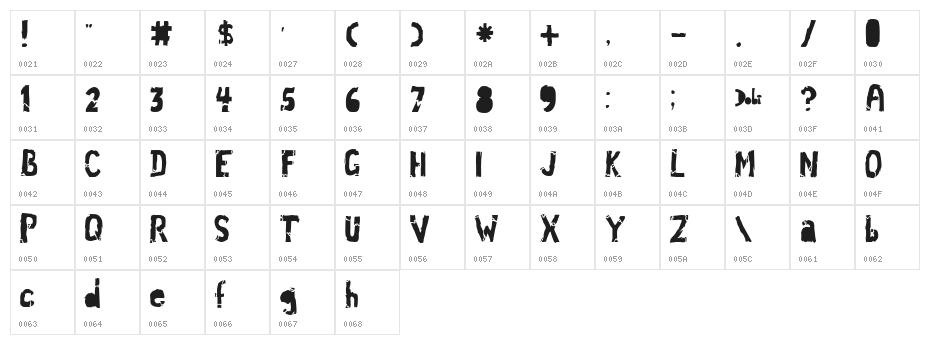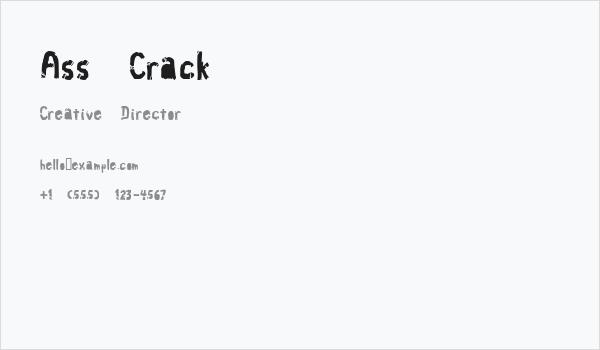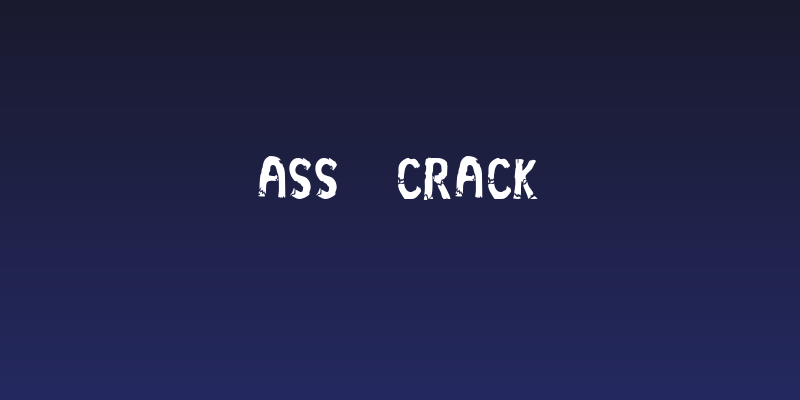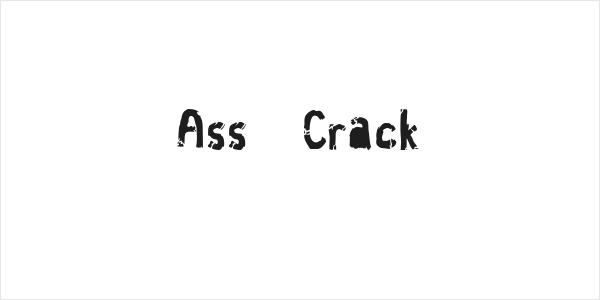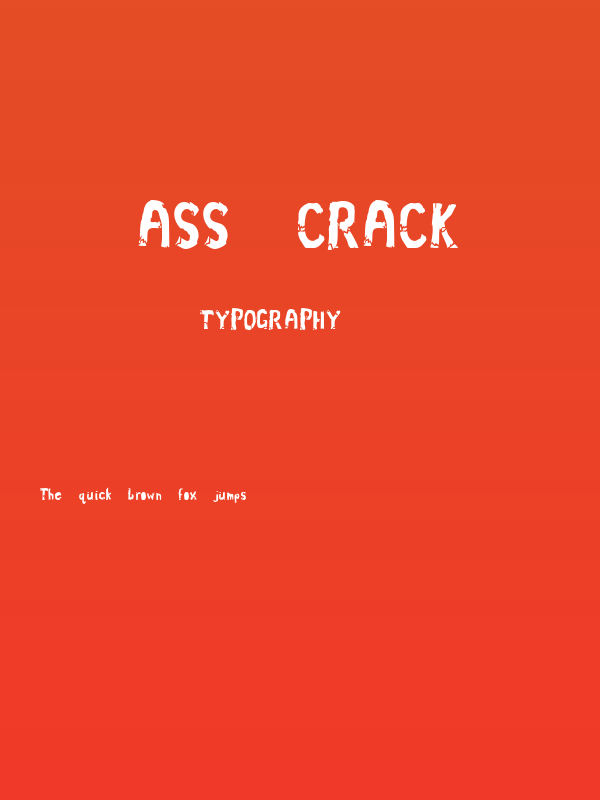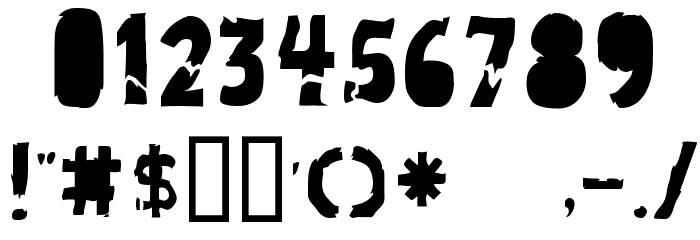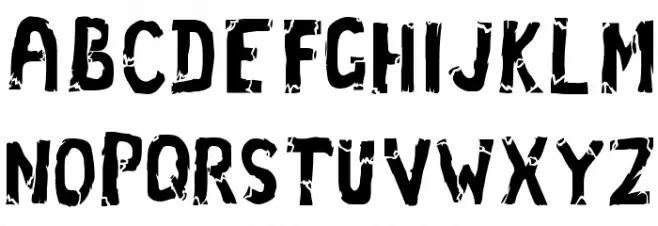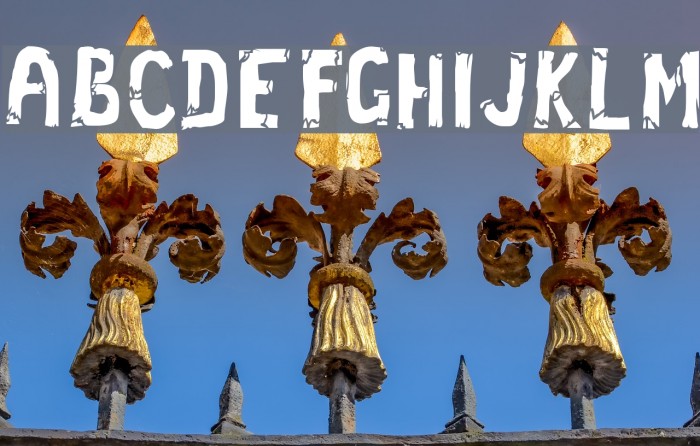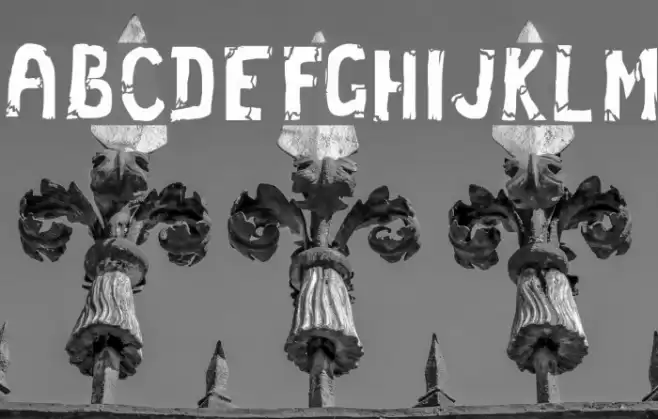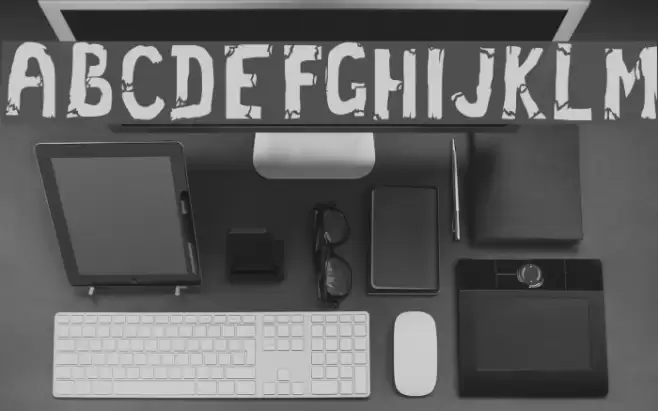
Ass Crack Font
Ass Crack Description
This font exhibits a rugged and distressed appearance, characterized by irregular edges and a bold, impactful presence. Each letter seems to have been weathered or eroded, giving it a unique, grunge-like texture. The uppercase and lowercase letters maintain a consistent style, with the uppercase being slightly more pronounced. The numbers and special characters follow the same distressed theme, ensuring a cohesive look across all elements. This font's boldness and texture make it stand out, ideal for projects that require a strong visual impact.
| Proposed Projects | Ideal for album covers, posters, and branding that require a bold, edgy aesthetic. |